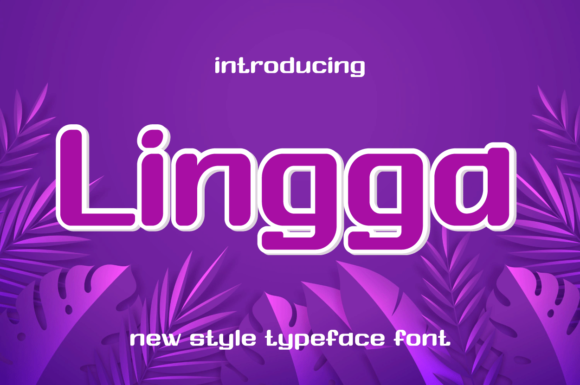
Dive into the world of urban typography with Lingga Font, the display font that exudes cool and trendy vibes. Designed by the skillful Soegih Artwork, Lingga is a font family that will add a touch of streetwise style to your creative projects. Its bold and confident strokes make it perfect for T-shirt designs, business cards, web designs, and anything else that demands a dash of urban flair.
With Lingga Font, you'll have the power to transform your designs into captivating expressions of urban culture. Picture your T-shirts featuring bold and stylish text that speaks to the heart of the city streets. Envision your business cards standing out with a unique and memorable font that leaves a lasting impression. Imagine your web designs radiating a trendy and modern aura, capturing the attention of visitors from the very first glance.
Lingga Font is more than just a collection of letters; it's a gateway to urban expression. Its strong and edgy character reflects the energy and vibrancy of city life. Each glyph is meticulously crafted to convey a sense of boldness, confidence, and style. Whether you're a seasoned designer or just starting your creative journey, Lingga Font will empower you to create designs that resonate with the urban spirit.
Unleash your creativity and embrace the urban typography revolution with Lingga Font. Let your designs speak the language of the city streets, captivating your audience with every stroke and curve. Join the ranks of trendsetting designers and make a statement with Lingga Font, the epitome of urban cool and trendy style.